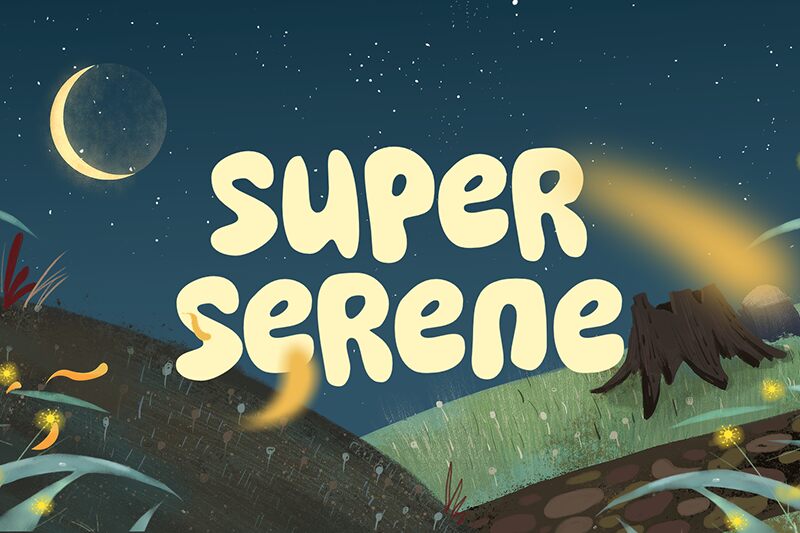
Super Serene
Super Serene font by fsuarez913 is a casual display font with a rounded, approachable style. This cartoon type is bold and friendly, given the impressions of fascination and delight. It’s neither strict nor serious, but absolutely playful and expressive. The eye-catching letters appear authentic as if hand-drawn by pencil on paper.